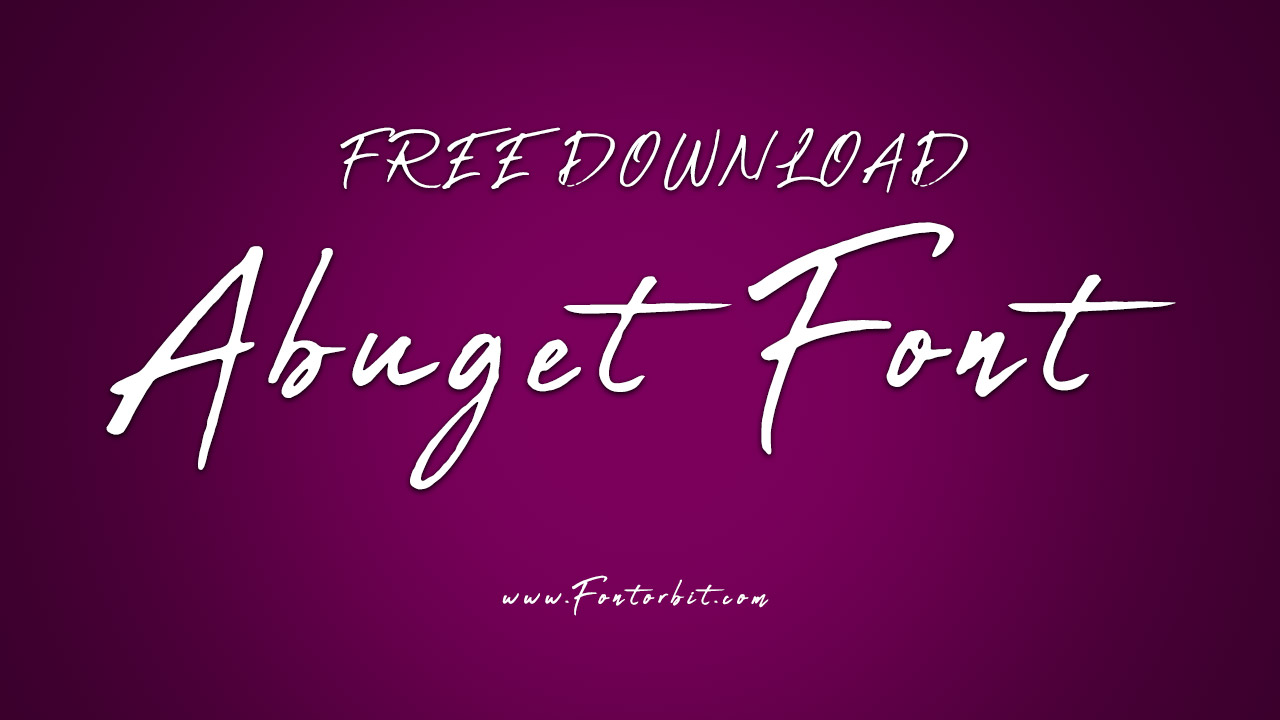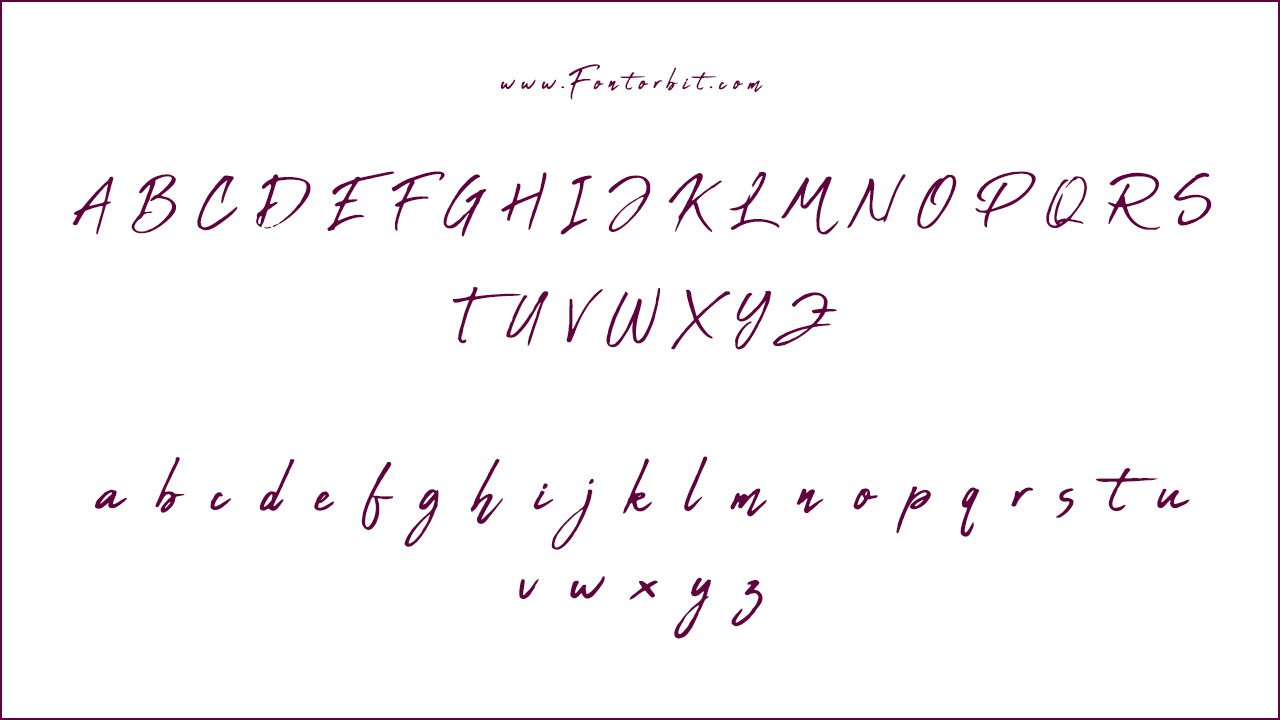
Abuget Font is a stylish and refreshing brush stroke typeface designed by Khurasan. This free script font combines elegance with readability, making it ideal for both display and body text. Available for commercial use, Abuget supports 31 languages and comes in OTF and TTF formats.
Abuget Font stands out with its beautiful brush stroke design, offering a single, versatile style suitable for a range of creative projects. Its elegant script is perfect for adding a touch of sophistication to any design.
Abuget Font’s smooth and stylish appearance makes it perfect for various applications where a refined and artistic touch is desired. Abuget Font is commonly used in contexts where a refined, artistic script is needed. Its elegant brush strokes make it popular for invitations, branding, and other projects requiring a personal touch.
- Wedding Invitations
- Greeting Cards
- Event Posters
- Fashion and Lifestyle Magazines
- Website Headers
- Creative Marketing Materials
- Personal Stationery
- Artistic Projects
Abuget Font offers a beautiful and versatile script design, perfect for adding a touch of elegance and creativity to various projects. Its brush stroke style enhances readability and aesthetic appeal, making it suitable for both display and body text.
Abuget Font is ideal for projects requiring an elegant, brush stroke aesthetic. It’s best used for display text and creative designs but may be less suitable for formal or minimalistic layouts.
Abuget Font stands out with its smooth, elegant brush strokes and readability, combining artistic flair with versatility for both display and body text.
Abuget Font is popular for wedding invitations, greeting cards, branding, and creative marketing materials, where a refined and artistic touch is desired.
Abuget Font focuses on elegance and artistic expression with its brush stroke design, providing a stylish and readable script suitable for various creative applications.
Abuget Font stands out in the script category with its elegant brush stroke design and readability. It combines artistic flair with versatility, making it more refined and versatile compared to many other script fonts.